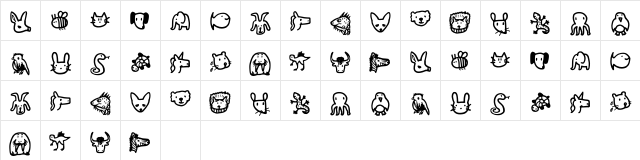
Complete Animals Regular glyph index. Displaying only characters natively supported by Animals Regular font.
Animals is a composed and adaptable typeface that performs quietly and consistently across a wide range of design contexts.